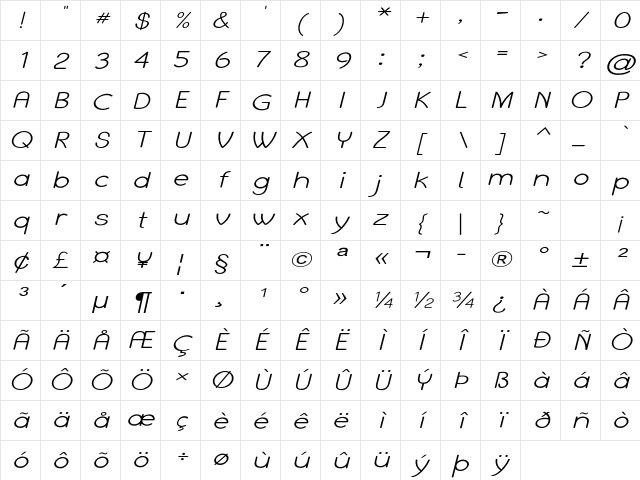
Ulio is a composed and adaptable typeface that performs quietly and consistently across a wide range of design contexts. The slanted form adds forward momentum and visual energy.
Pro Tip: Use Ulio for emphasis, pull quotes, and subheadings where its slanted energy can add rhythm to the layout.